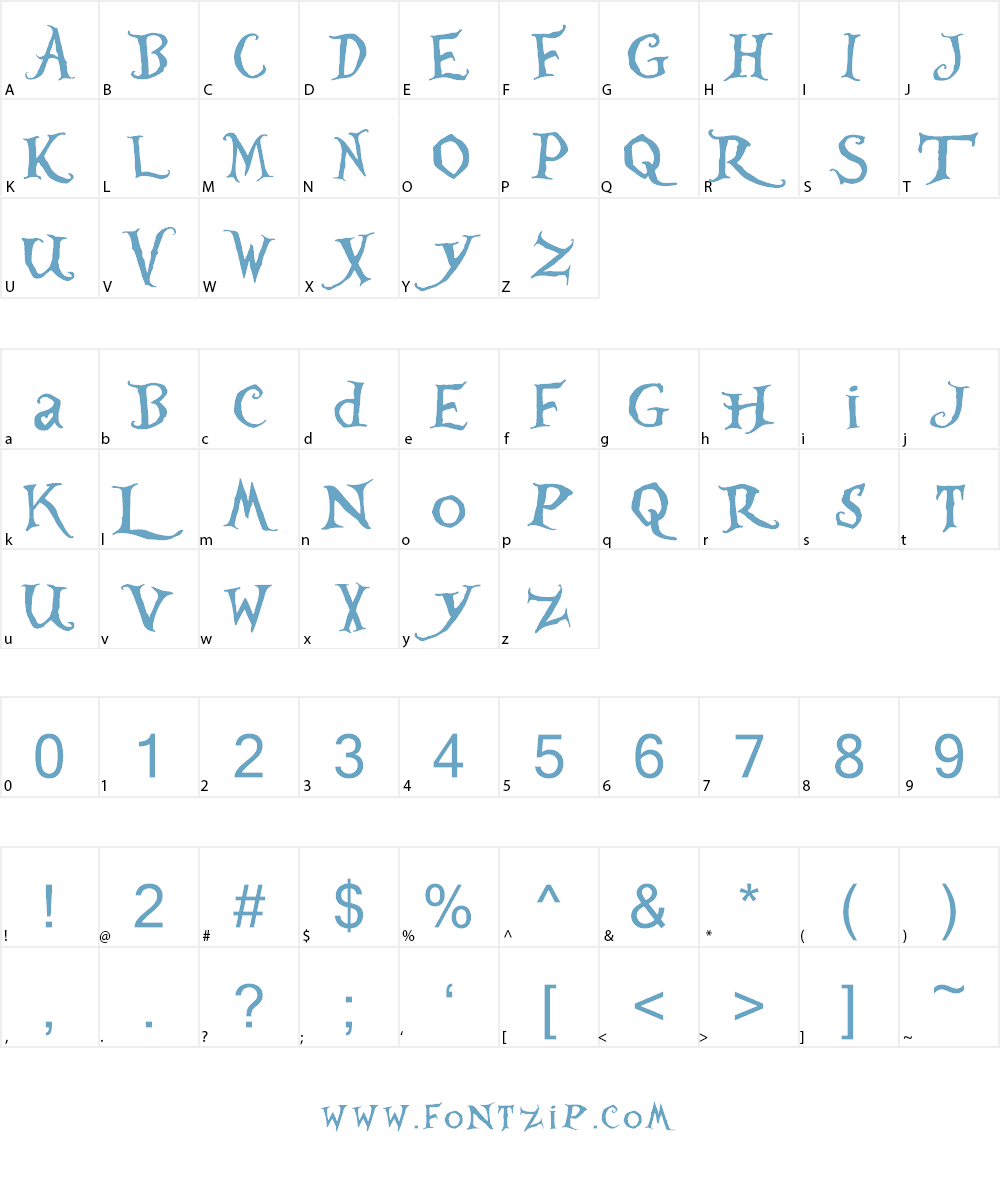
A font inspired by Tim Burton’s “Alice in Wonderland”. I tried to keep the style as close as possible to the original font, adding some personal touches. Please contact me is you wish to use the font commercially or if you would like to get the whole set.